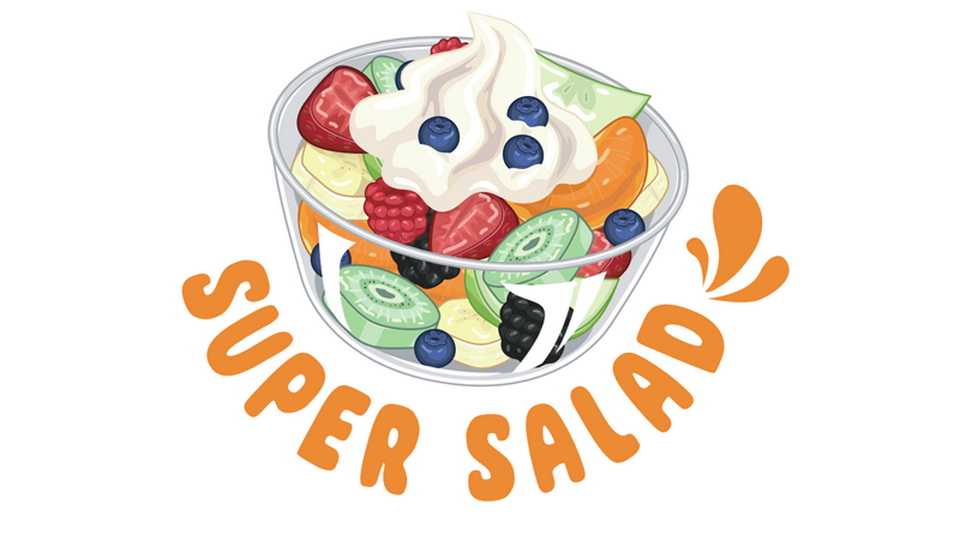
Download Super Salad font, an ultimate handwriting typeface for creating the cutest and most adorable designs. With its playful style, Super Salad font will make your quotes, posters and graphics stand out from the crowd.